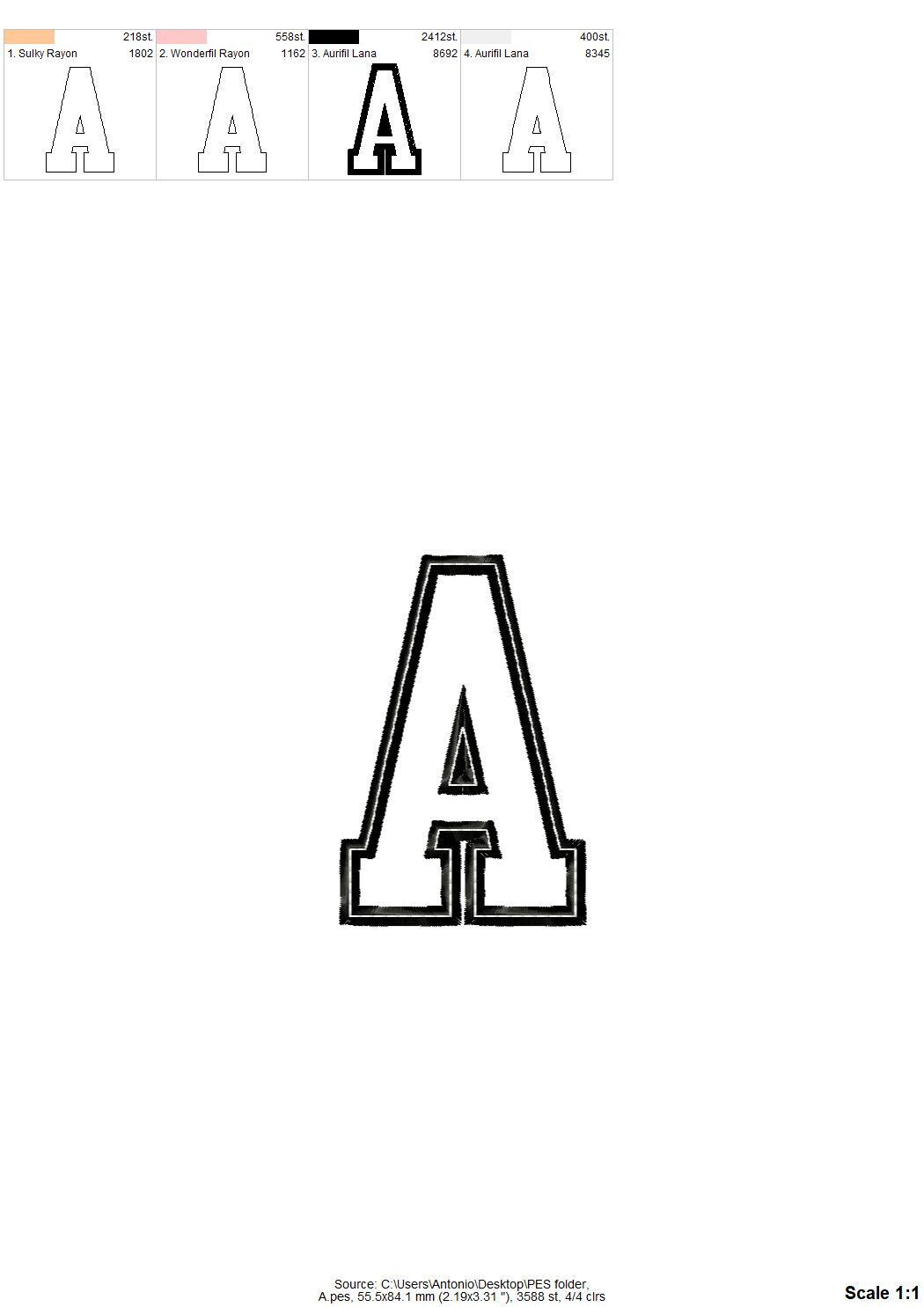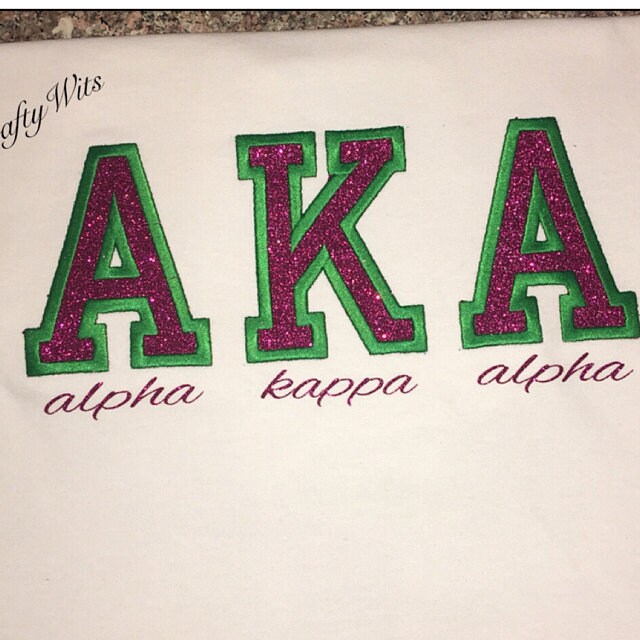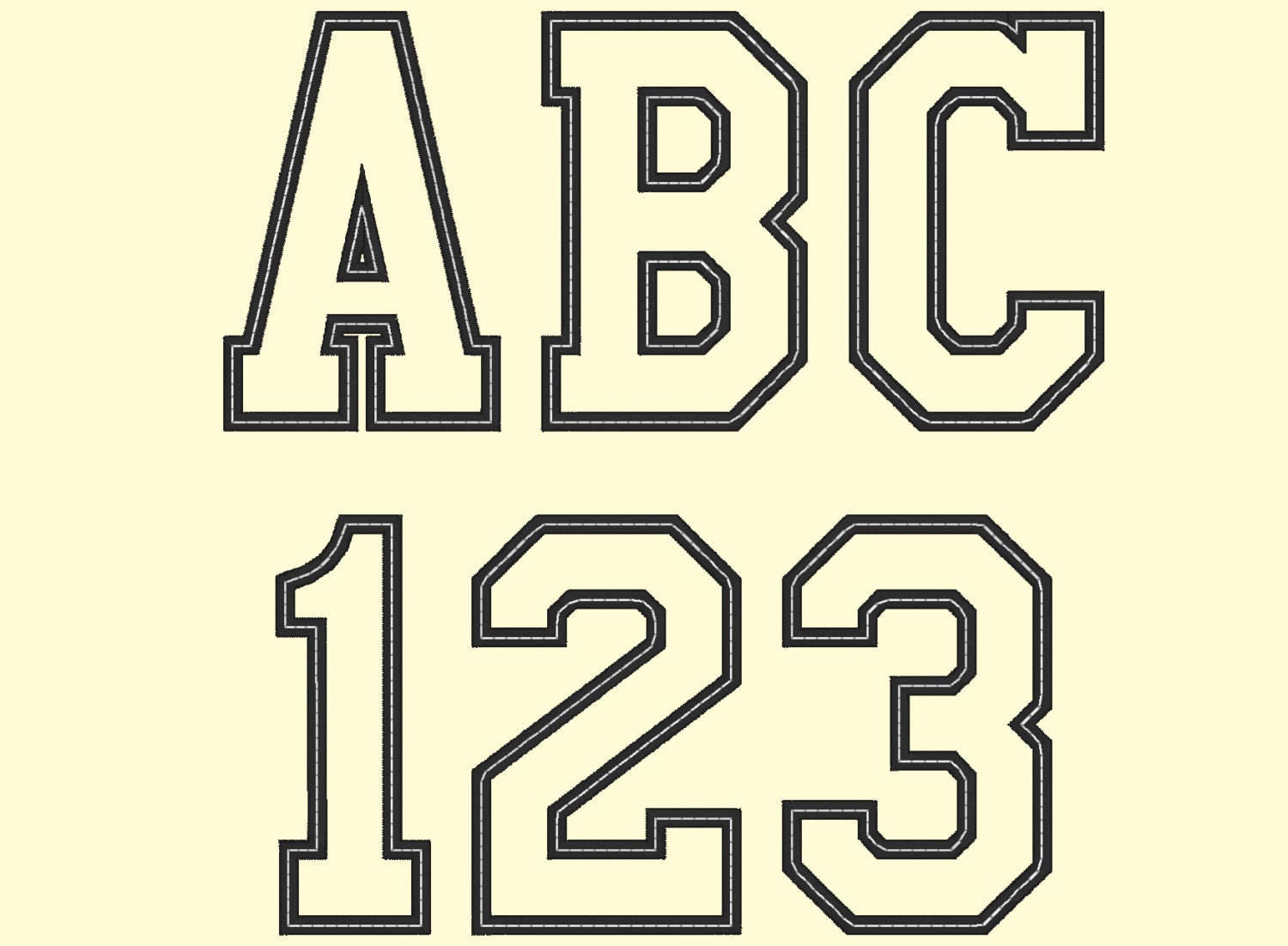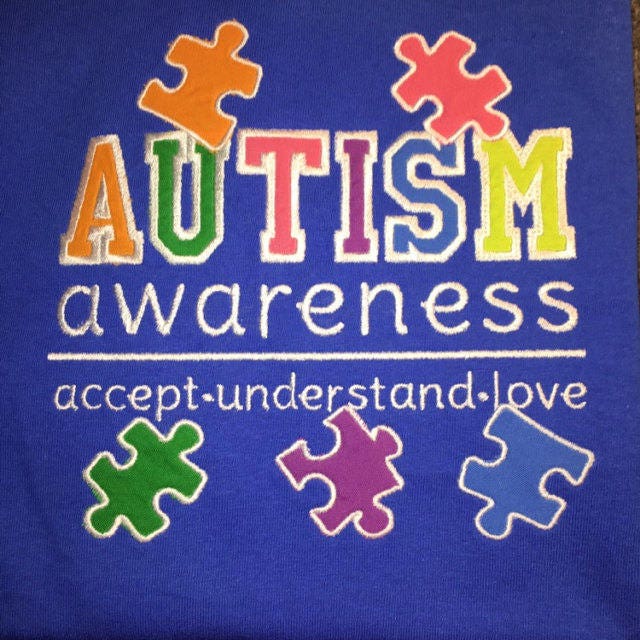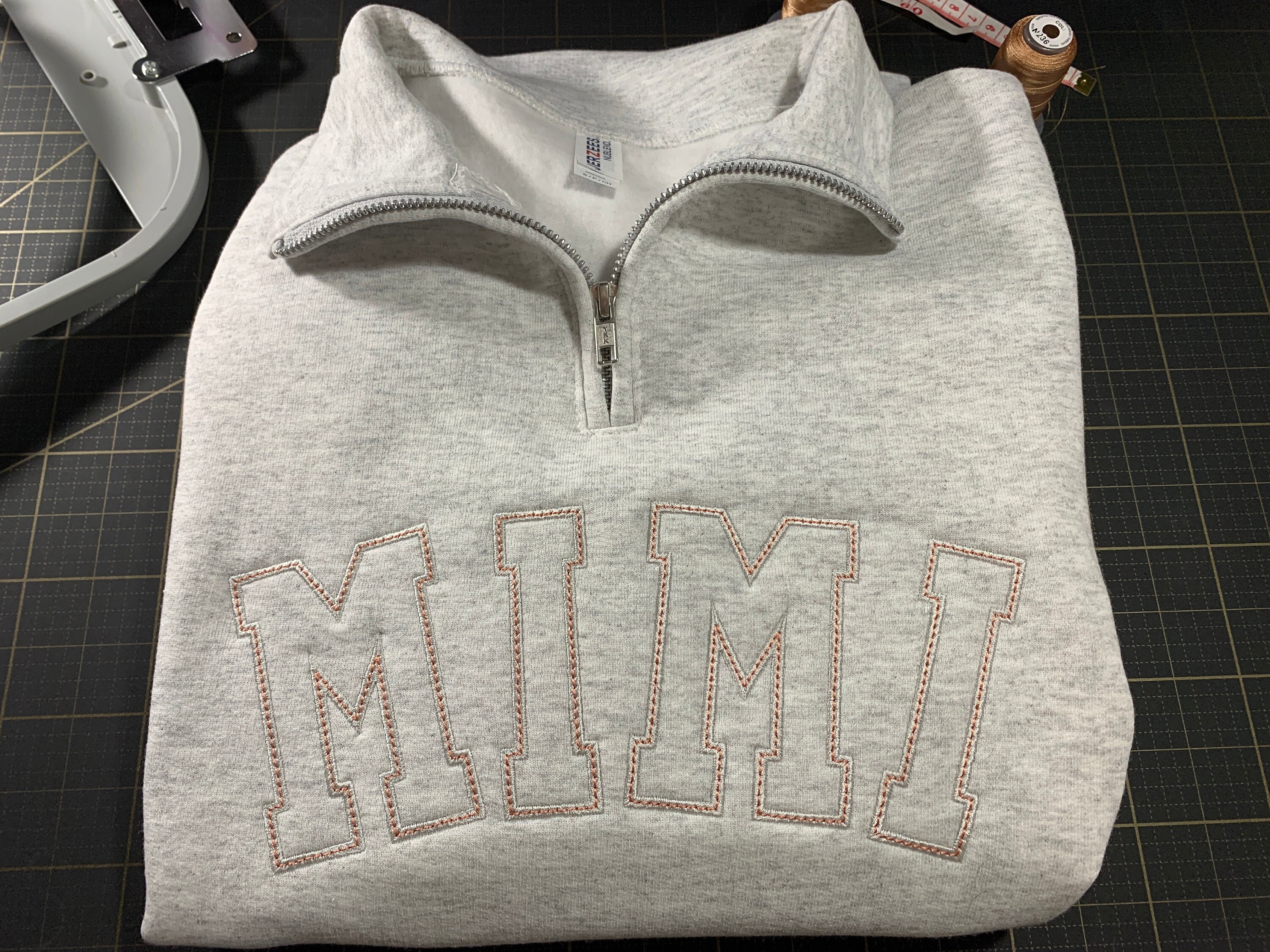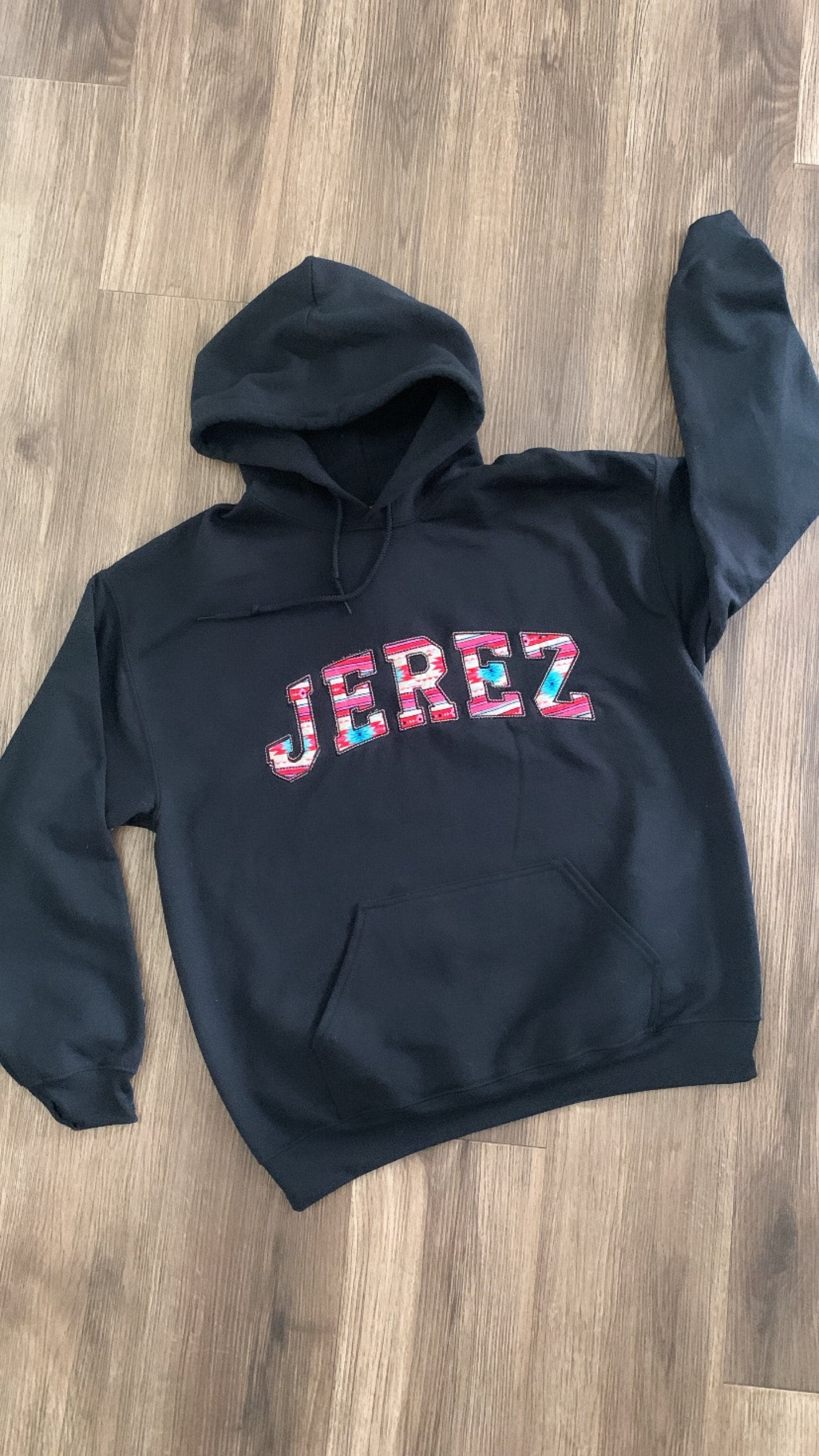
Sport Collegiate Block Font Applique with top stitch machine embroidery designs Alphabet Monogram many sizes 2 up to 6 inches and BX
Appliqué design.
It features a wide satin stitch outline with an optional bean stitch on top. If preferred, the bean stitch can be skipped.
Entire alphabet - capital letters and numbers.
This font is reproduced from a commercially free High School USA font created in 2013 by AbdulMakesFonts.